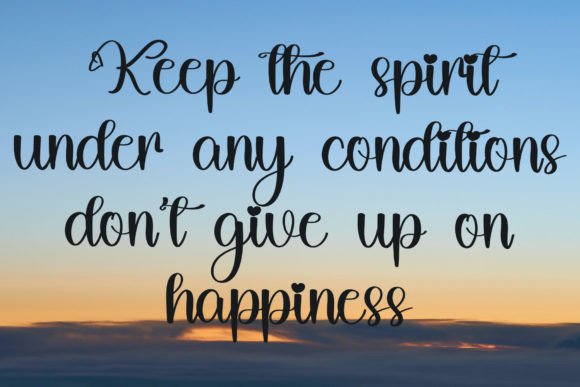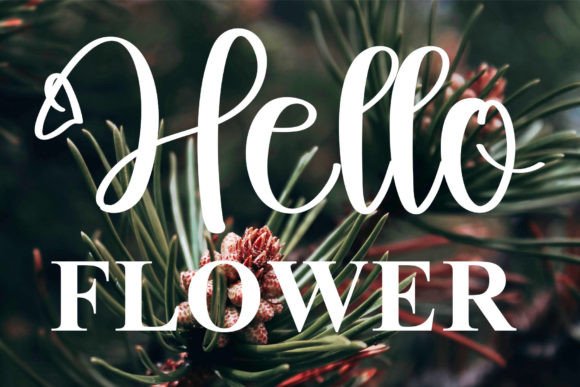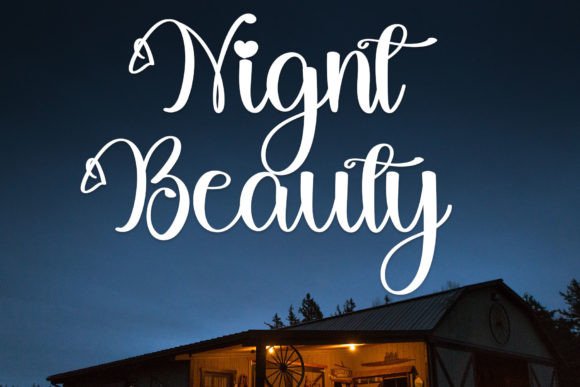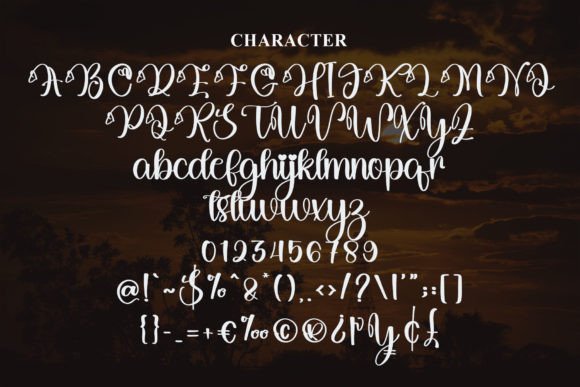
Introduction to Mellow Font Font
Fonts play a crucial role in design, and the Mellow Font font is a typeface that brings both character and versatility to any project. Whether you’re working on a branding project, a website, or a print design, the Mellow Font font offers a unique style that can elevate your work.
Mellow is a cute handwritten font with a fun and quirky personality.
Its irregular and playful letterforms create a sense of whimsy and individuality, making it perfect for designs that require a touch of uniqueness Its natural, handwritten style adds a charming and personal feel to any project.
Key Features of Mellow Font Font
Why Choose Mellow Font Font?
The Mellow Font font is more than just a typeface – it’s a design tool that helps you communicate your message with style and clarity. Its unique character set and versatile design make it suitable for a wide range of applications, from elegant invitations to bold headlines.
With its carefully crafted letterforms and balanced proportions, the Mellow Font font ensures readability and visual appeal across all mediums.
What makes Mellow Font font special?
The Mellow Font font stands out with its unique design, exceptional readability, and versatility across various design applications.